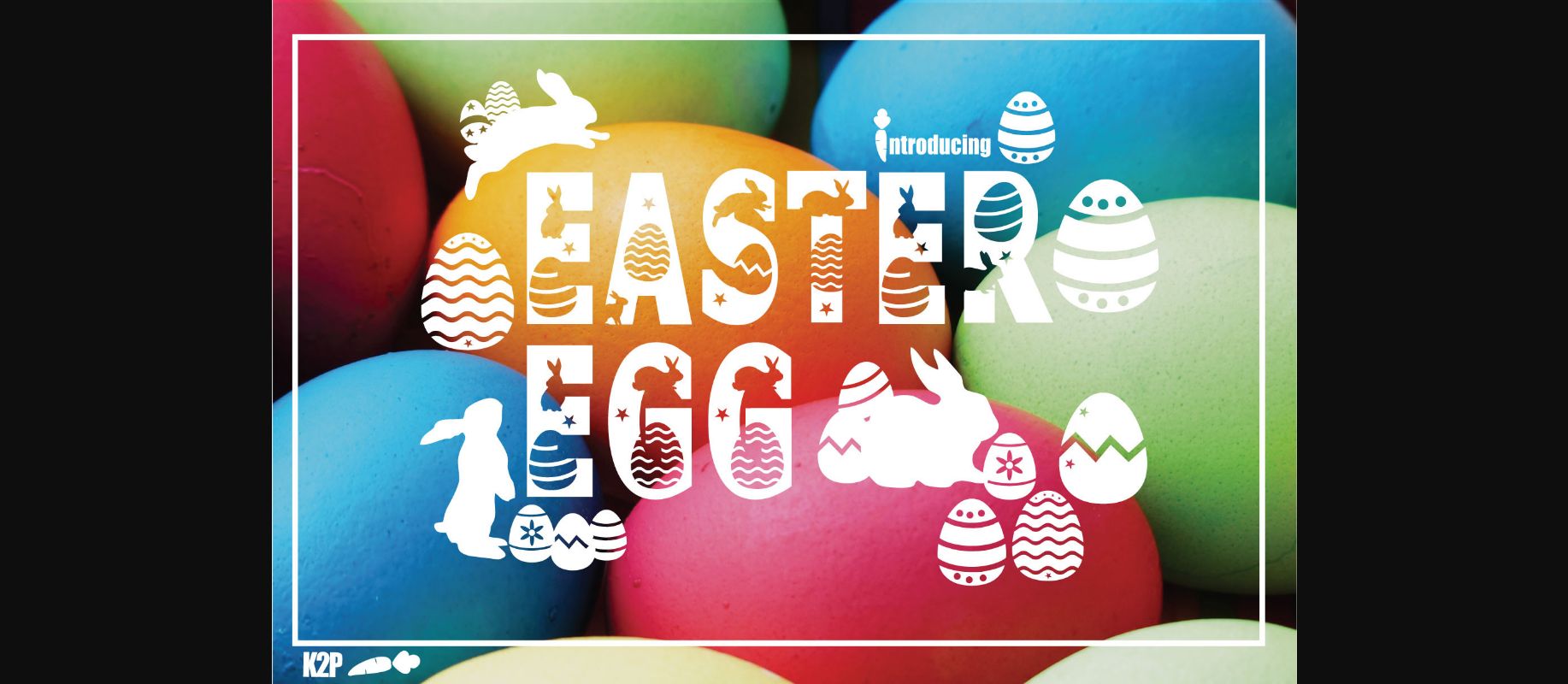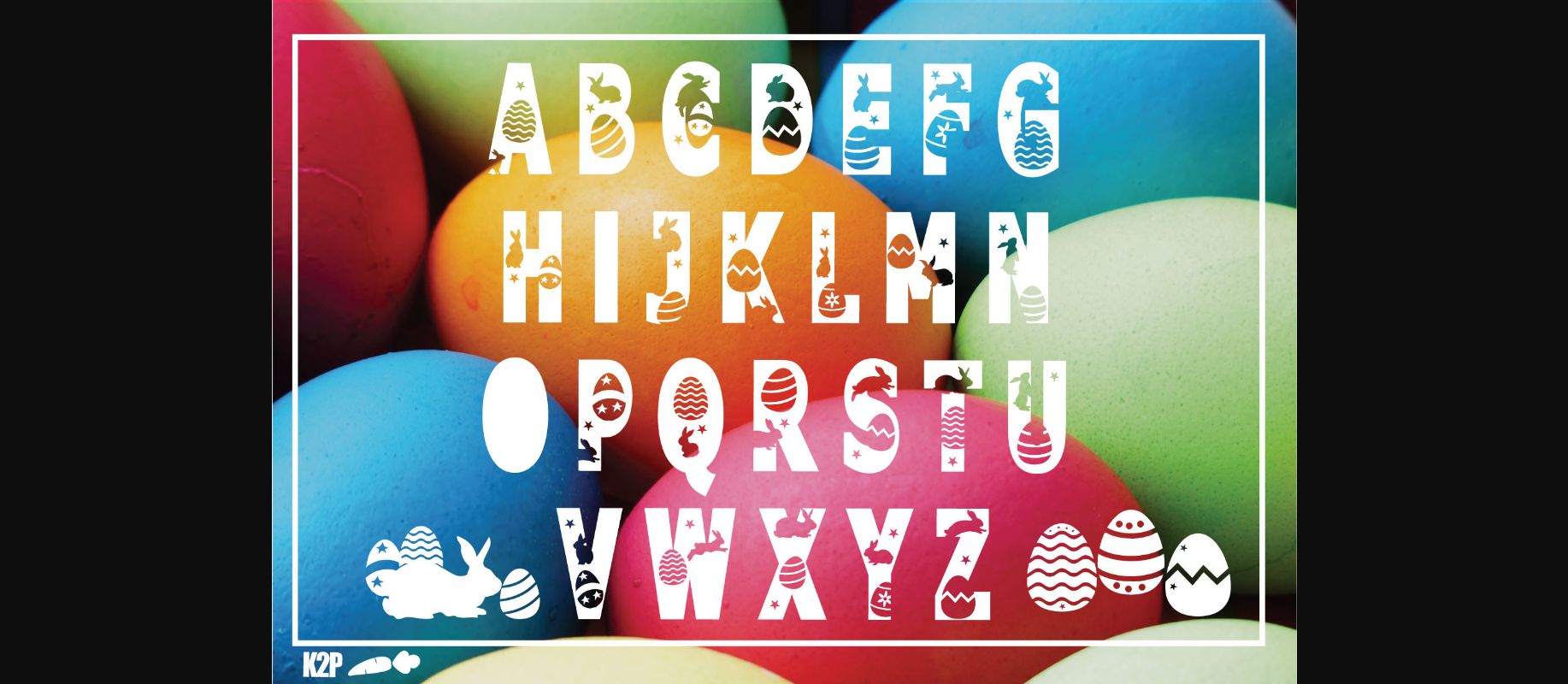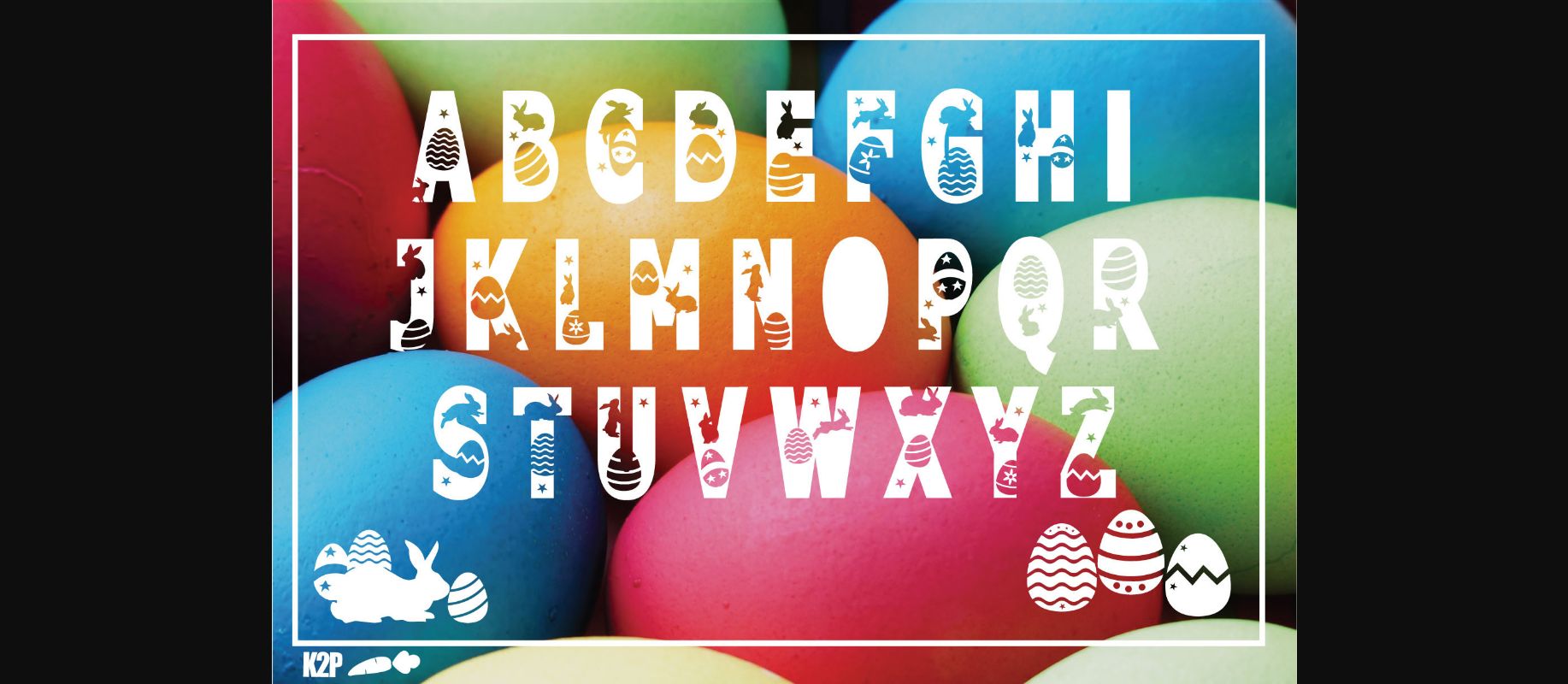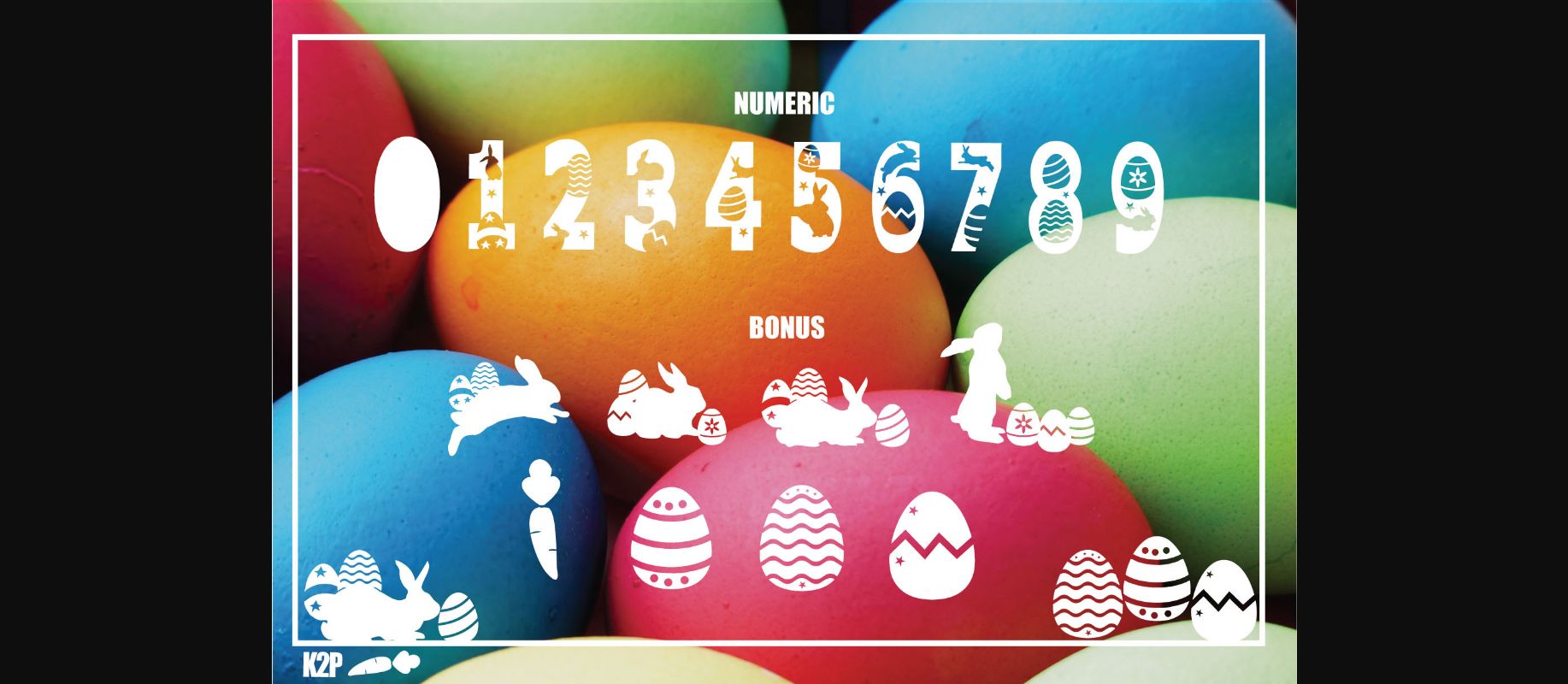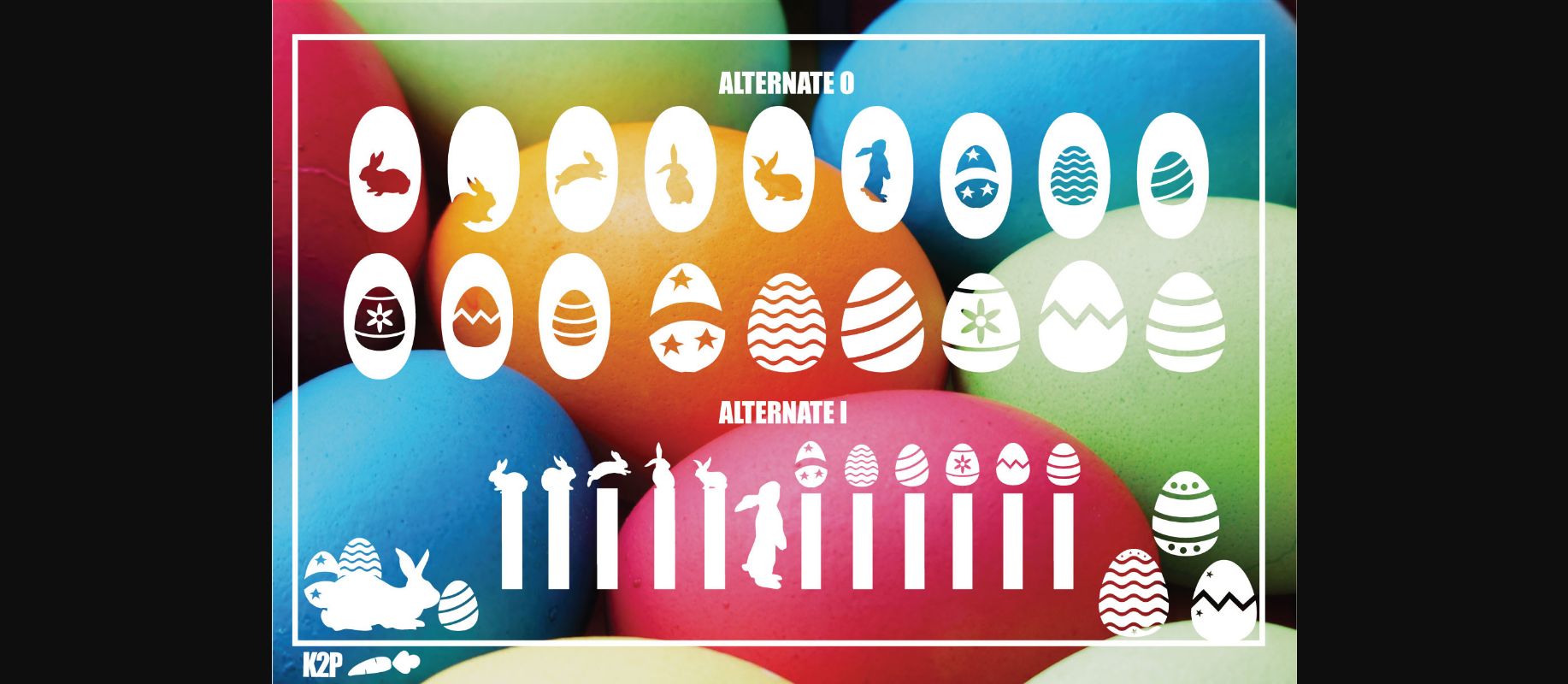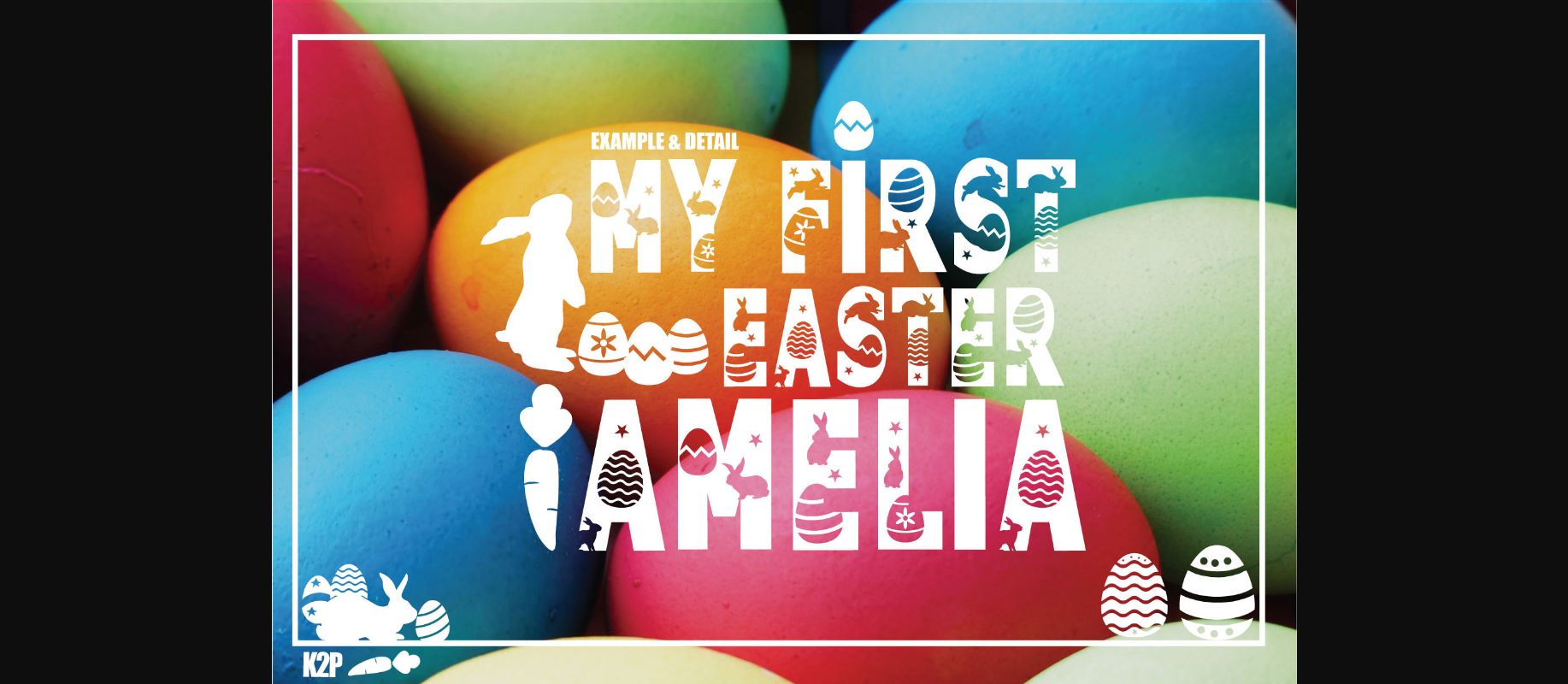
HomeDecorative FontsEaster Egg Font Decorative Fonts Easter Egg Font FacebookXPinterestWhatsApp 1 of 8 ... Easter Egg Font Poster 2... Easter Egg Font Poster 3... Easter Egg Font Poster 4... Easter Egg Font Poster 5... Easter Egg Font Poster 6... Easter Egg Font Poster 7... Easter Egg Font Poster 8... About Easter Egg Font Easter Egg is a beautiful and festive decorative font with an Easter holiday theme. Use this gorgeous font to brighten up any Easter-themed project! DOWNLOAD NOW People also explored Holmes & Watson Monograms Blackboard Font Wintersnow Font Sweetheart Cute Kidding Font Sweep Font Kissita Font Ralliesta Font Neilston Font 318 0 TagsEaster Egg Font Previous articleEaster Egg Fancy FontNext articleGatlin Font LEAVE A REPLY Cancel reply Comment: Please enter your comment! Name:* Please enter your name here Email:* You have entered an incorrect email address! Please enter your email address here Website: Save my name, email, and website in this browser for the next time I comment. Personal Use Free Pouline Personal Use Free Read more about this font Bulky Personal Use Free Read more about this font Sebastopol Personal Use Free Read more about this font Cosmos Personal Use Free Read more about this font BLOG Top 7 Google Fonts Alternatives for Faster and Privacy-Friendly Web Design (2025) Top 7 Google Fonts Alternatives for Faster and Privacy-Friendly Web Design (2025) When it comes to web typography, Google Fonts has long been the go-to... Exploring Font Trends Modern Sans-Serif Fonts That Brands Love in 2025 5 Fonts That Will Dominate Design Trends in 2026